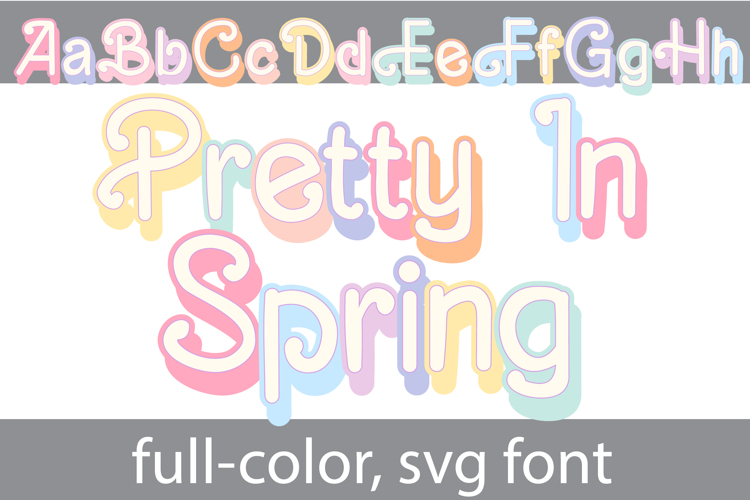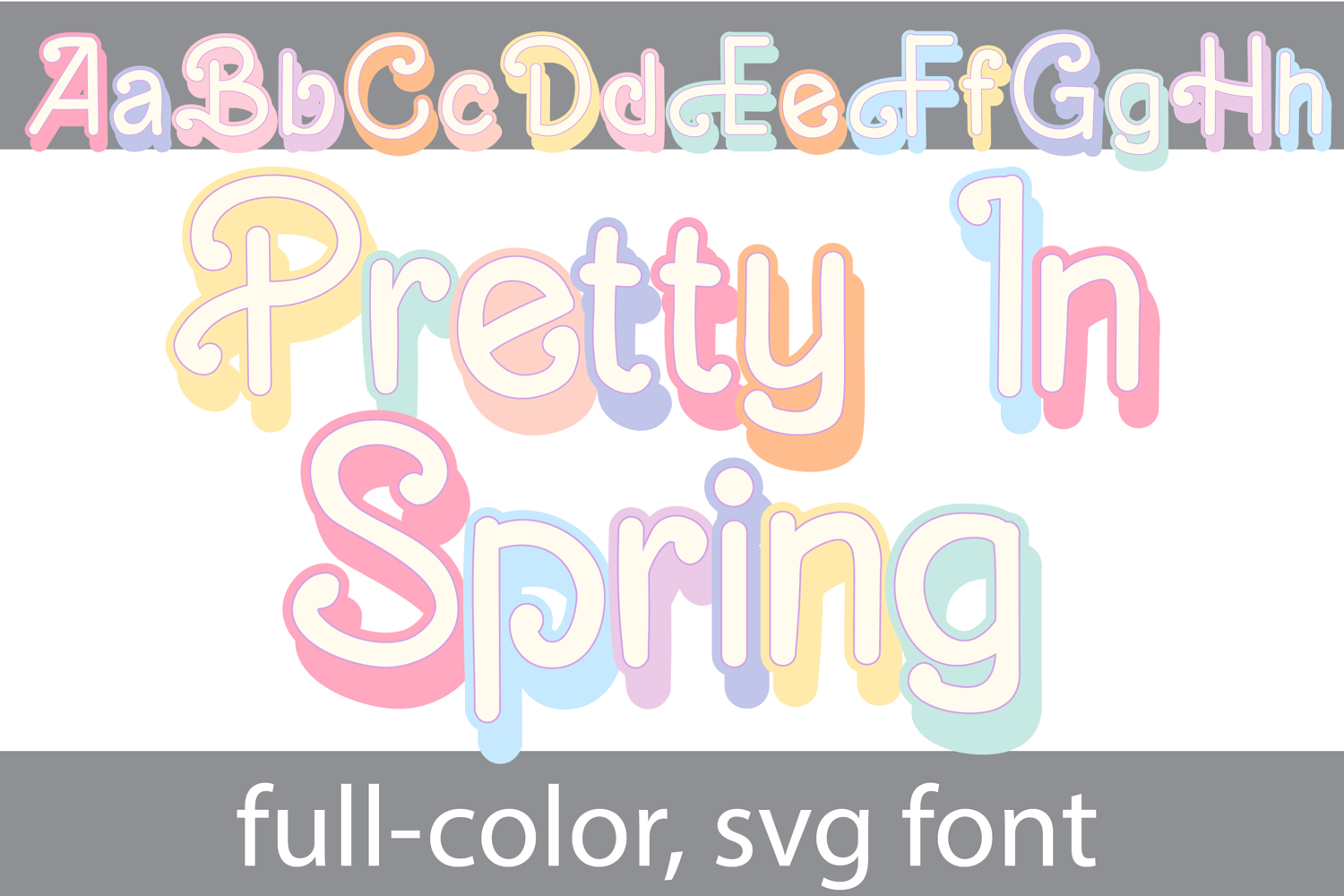
Pretty in Spring Color Font
This full-color, pastel-colored font features a font style reminiscent of 12" dolls. There is an alt case of each letter with a different color combination.